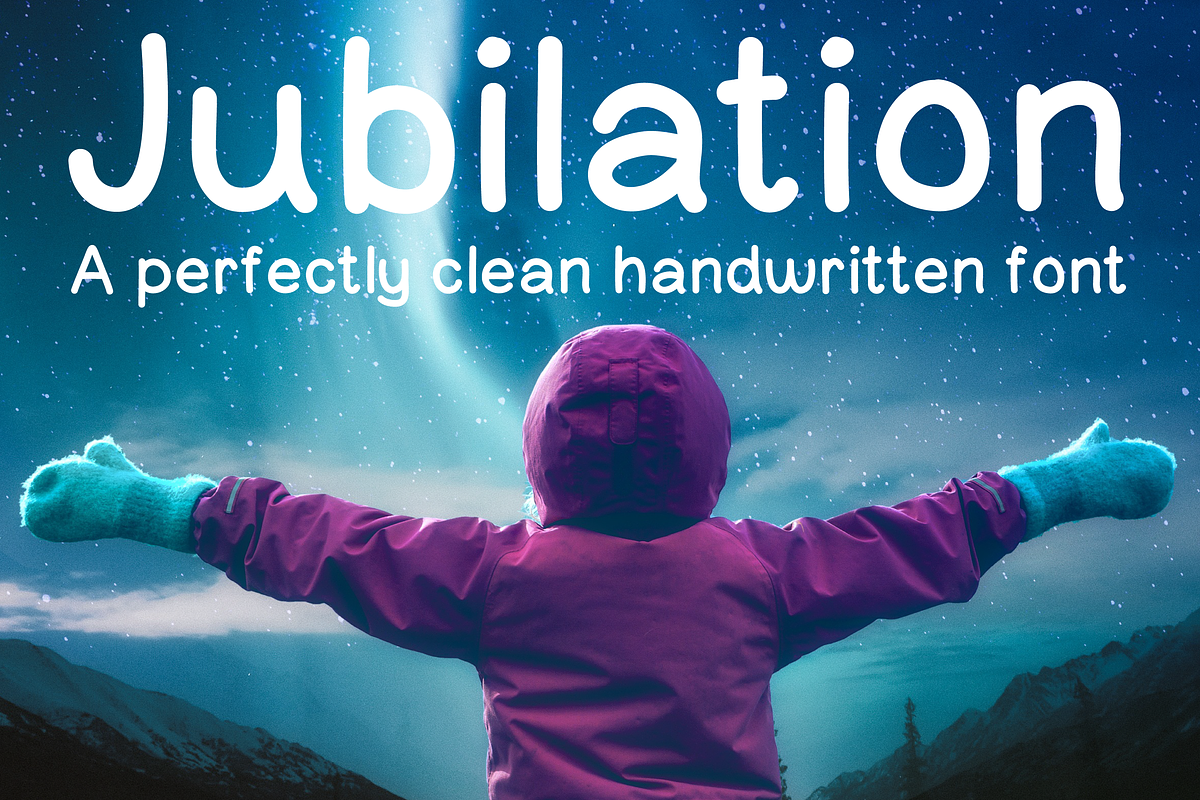
Jubilation Sans Serif Font TTF OTF Free Download is a clean, modern, and joyfully designed typeface that radiates positivity and clarity. Available in both TTF and OTF formats, this sans serif font is perfect for branding, editorial layouts, social media graphics, website headers, posters, and anything that needs a fresh, professional look with a friendly twist.
With balanced proportions and rounded edges, Jubilation offers both readability and warmth. Whether you're designing for a corporate campaign or a creative passion project, this font adds an uplifting and approachable vibe to your text.